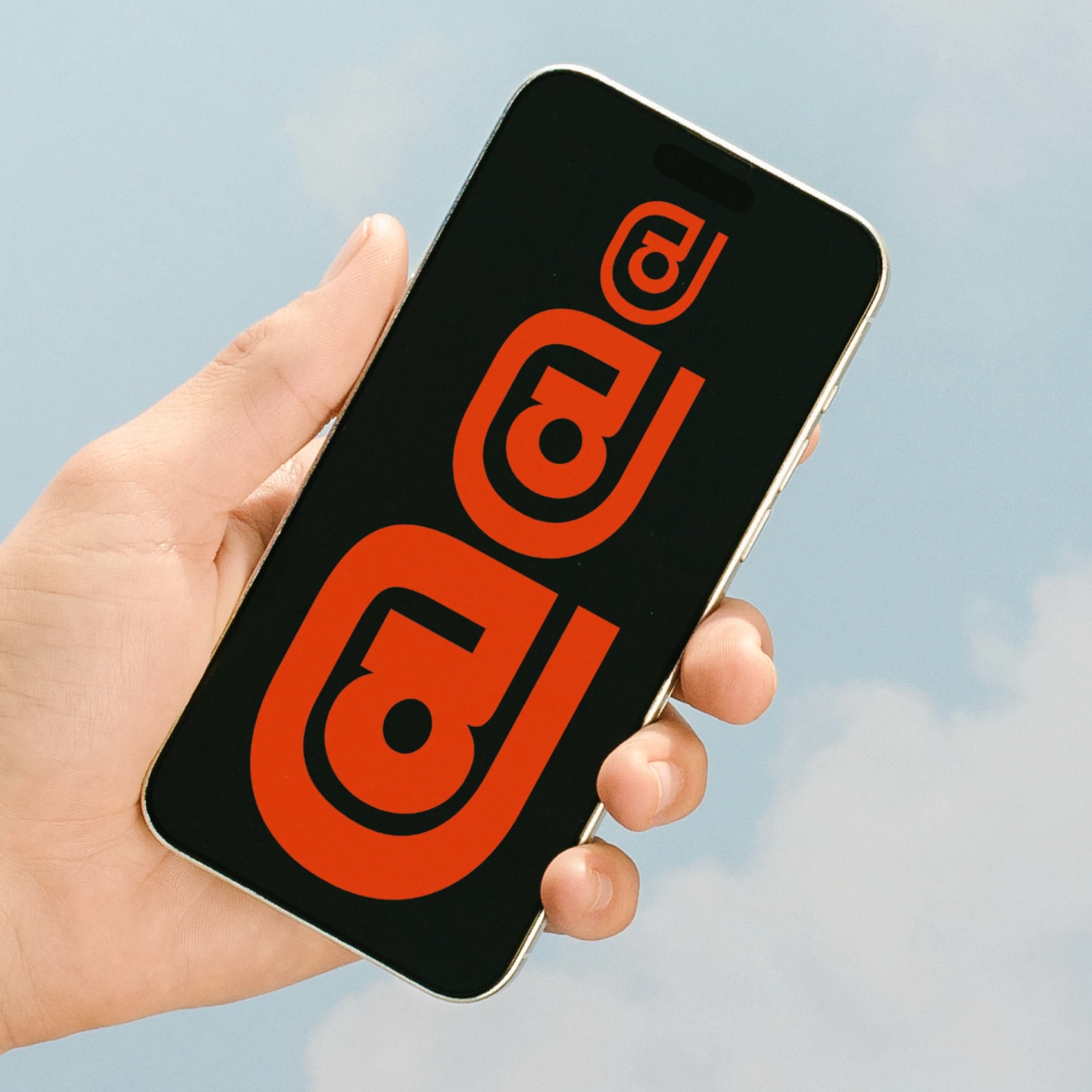
Arha Typeface: Geometric Sans with Constructivist Roots
Arha typeface by Bolditalic Studio fuses constructivist architecture with old-style grotesque, now with Greek, Georgian, Armenian, and Cyrillic scripts.
The Arha typeface began with a deceptively simple premise: take the bones of early twentieth-century grotesque letterforms and rebuild them through the lens of constructivist architecture. The result, created by Bolditalic Studio in collaboration with designers Kirill Turygin and Dmitry Goloub, is a geometric sans serif that carries genuine historical weight without feeling like a pastiche. Where most revival typefaces lean into nostalgia, Arha typeface pushes in the opposite direction, refining each glyph until the archaic logic behind the old-style grotesque becomes a structural feature rather than a stylistic quirk.
What distinguishes Arha typeface from the crowded landscape of geometric sans serifs is its commitment to cultural breadth. The 3.0 update, released in January 2026, significantly expands the character set to include Greek, Georgian, Armenian, and an extended Cyrillic alphabet with Abkhazian support. These additions are not afterthoughts appended to a Latin core — each script receives the same constructivist treatment that defines the Latin glyphs, making Arha typeface one of the few designs capable of maintaining visual consistency across such a diverse range of writing systems.
Arha Typeface: Structure Rooted in Constructivist Architecture
Arha typeface full alphabet specimen on dark background
The design team at Bolditalic Studio approached Arha typeface by studying the structural logic of constructivist buildings, particularly the way architects of that movement used geometric mass and negative space to create legibility at distance. Applied to letterforms, this thinking produces glyphs where the stroke relationships and apertures feel deliberate rather than decorative. The K and the Zh — both notoriously difficult letters to standardize across Latin and Cyrillic — receive special attention in the form of new stylistic sets in the 3.0 release, giving typographers additional control over how these characters sit within a composition.
Arha typeface weight variations and numerals displayed in grid
The weight range of Arha typeface covers the spectrum from a spare light that retains structure even at small sizes to a bold that holds its geometry under pressure. This range makes Arha typeface equally useful for editorial settings where headline and body need to coexist, and for branding contexts where a single typeface must carry a visual system across multiple touchpoints. The geometric construction also makes Arha typeface particularly effective in digital environments, where the clean horizontal and vertical strokes reproduce crisply across screen densities.
Extended Scripts and Multilingual Scope
Arha typeface Greek and Cyrillic character specimens side by side
The decision to expand Arha typeface into Georgian and Armenian is significant because both scripts carry strong calligraphic traditions that are difficult to reconcile with a geometric approach. Bolditalic Studio chose to honor those traditions structurally — studying the optical logic of each script — rather than imposing Latin proportions onto non-Latin shapes. The Cyrillic extension, which now includes Abkhazian characters, reflects a similar respect for script-specific conventions, making Arha typeface a genuinely multilingual tool rather than a Latin font with transliterated companions.
Arha typeface used in editorial layout with large display setting
Arha typeface specimen showing geometric sans serif letterforms